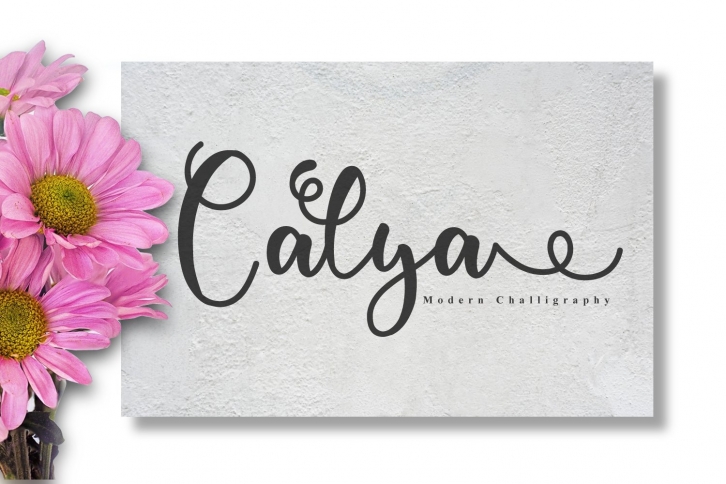
calya is a gorgeous font that was realeased on July 14, 2020. The font can be used in many style contexts and design environments. Perfect for invitations, magazines, websites, logos, and more! It was designed by niyyo and the file size is 21.21 MB. Thanks for checking out this font!